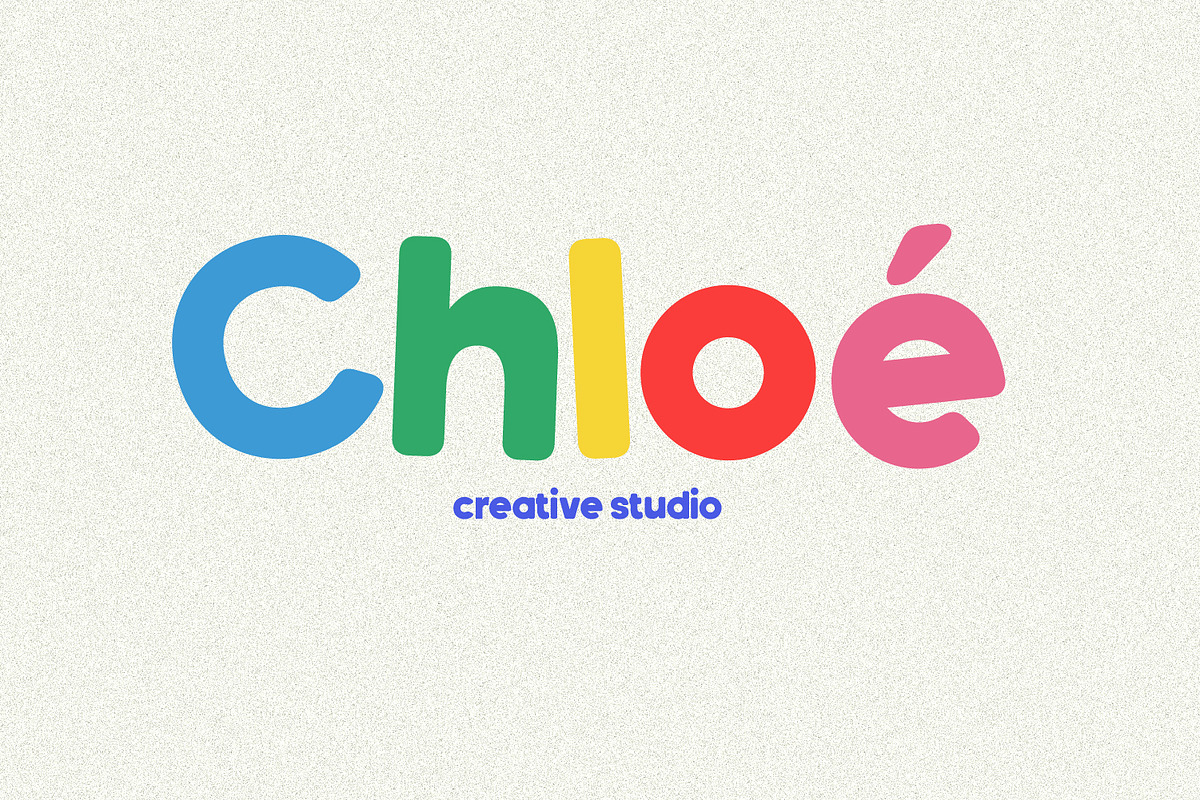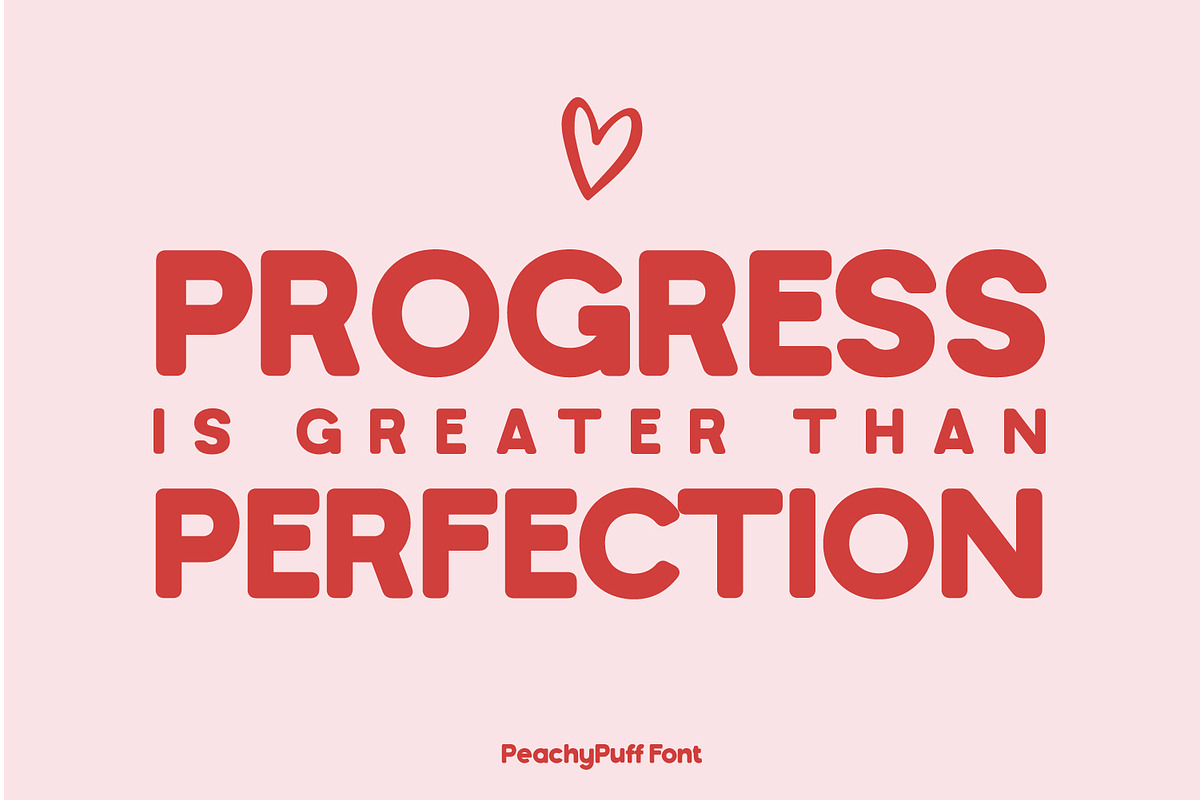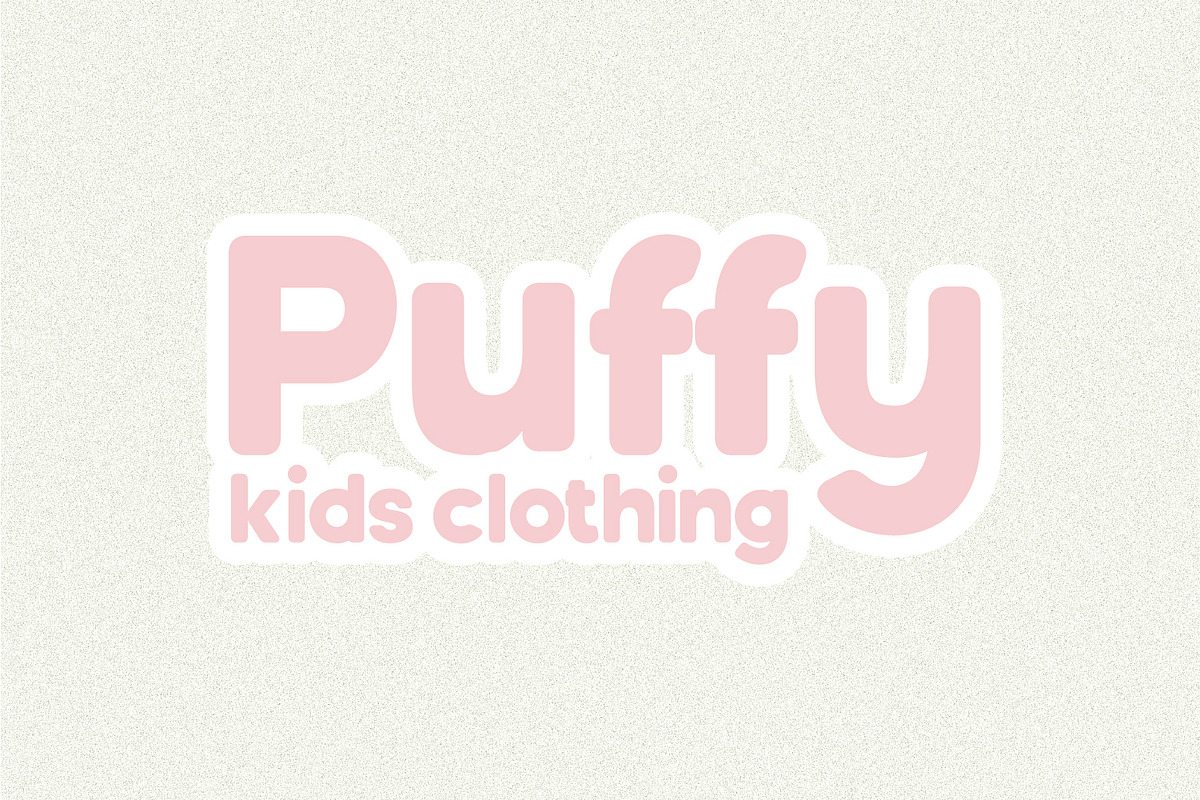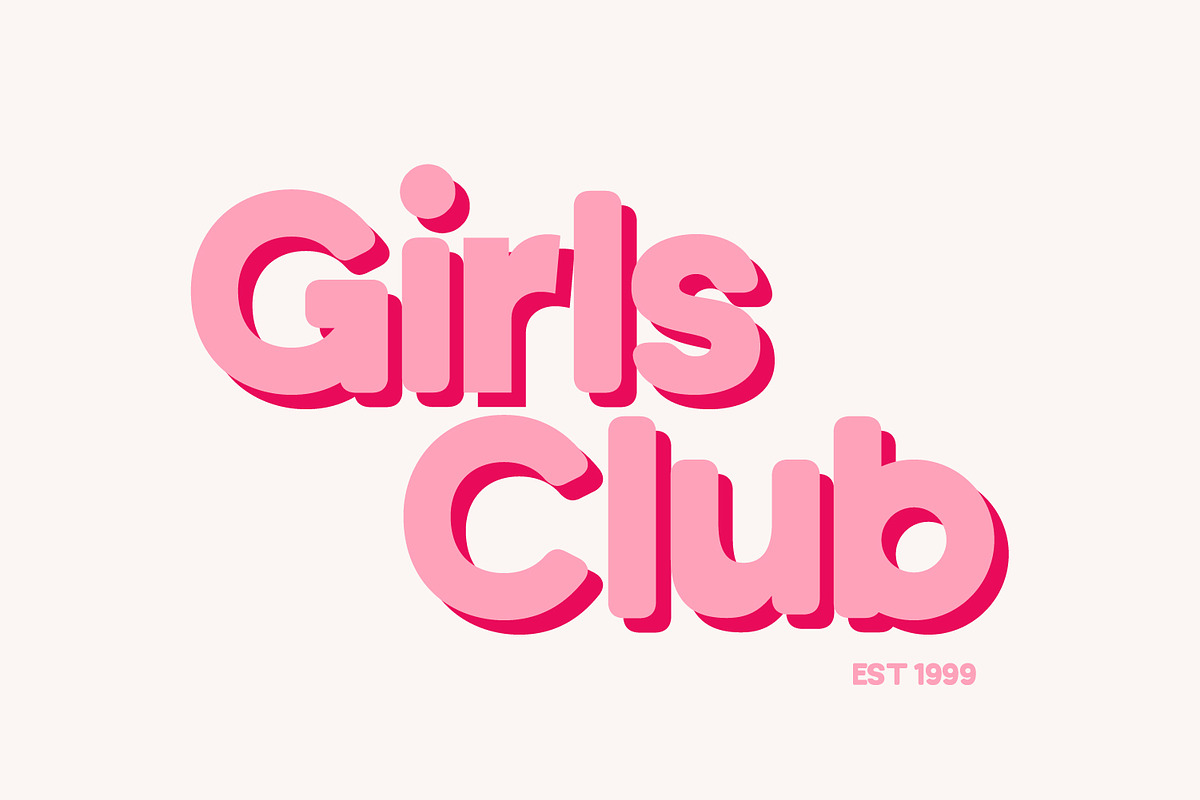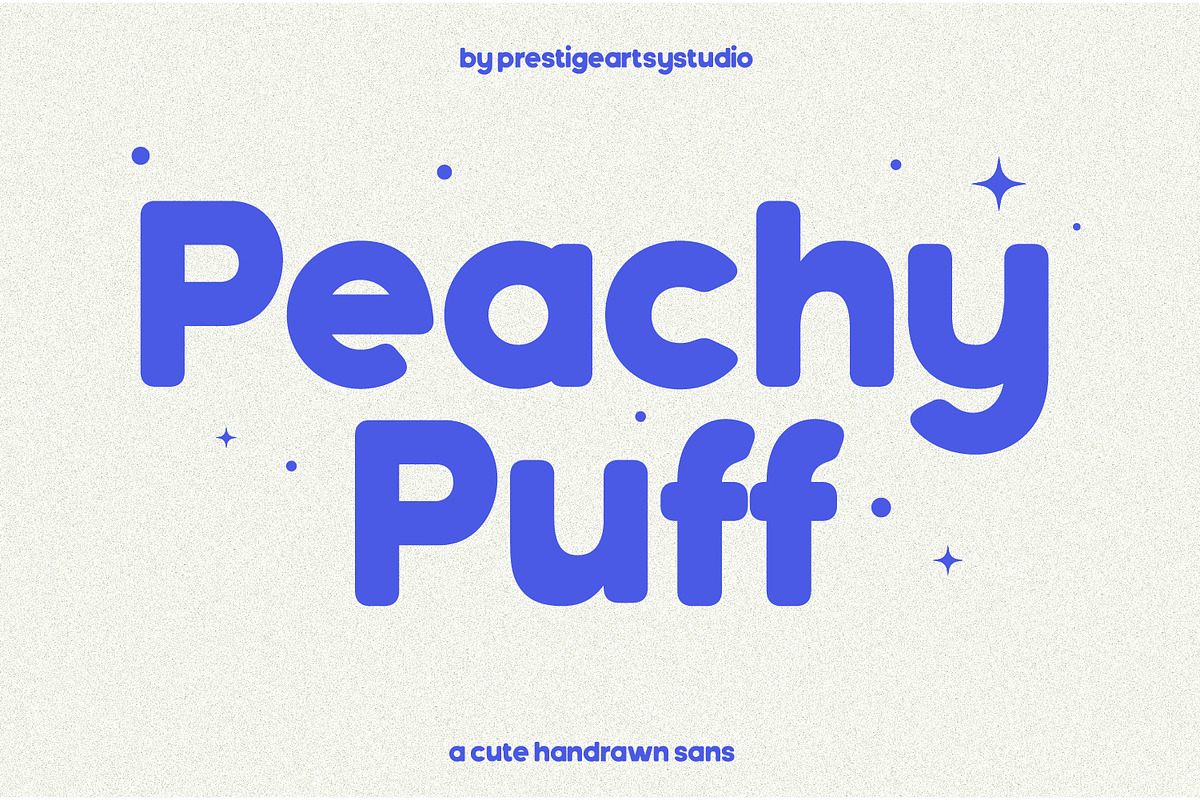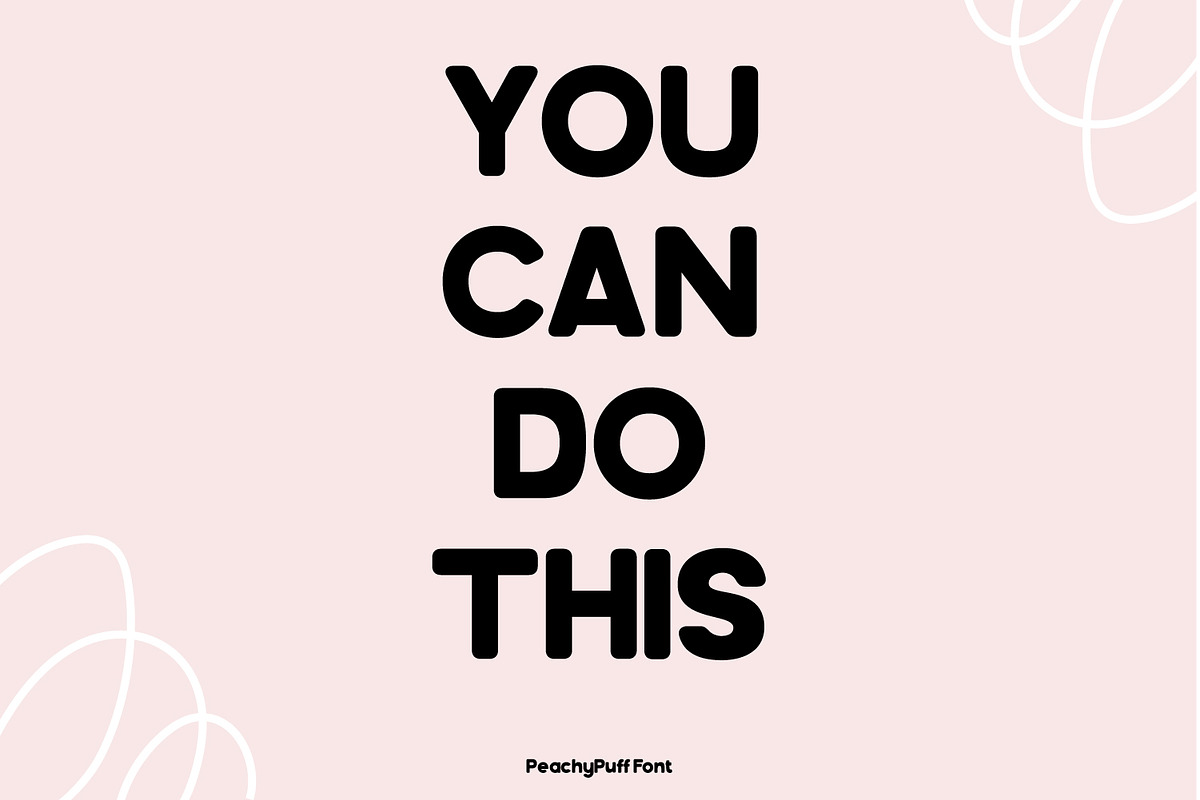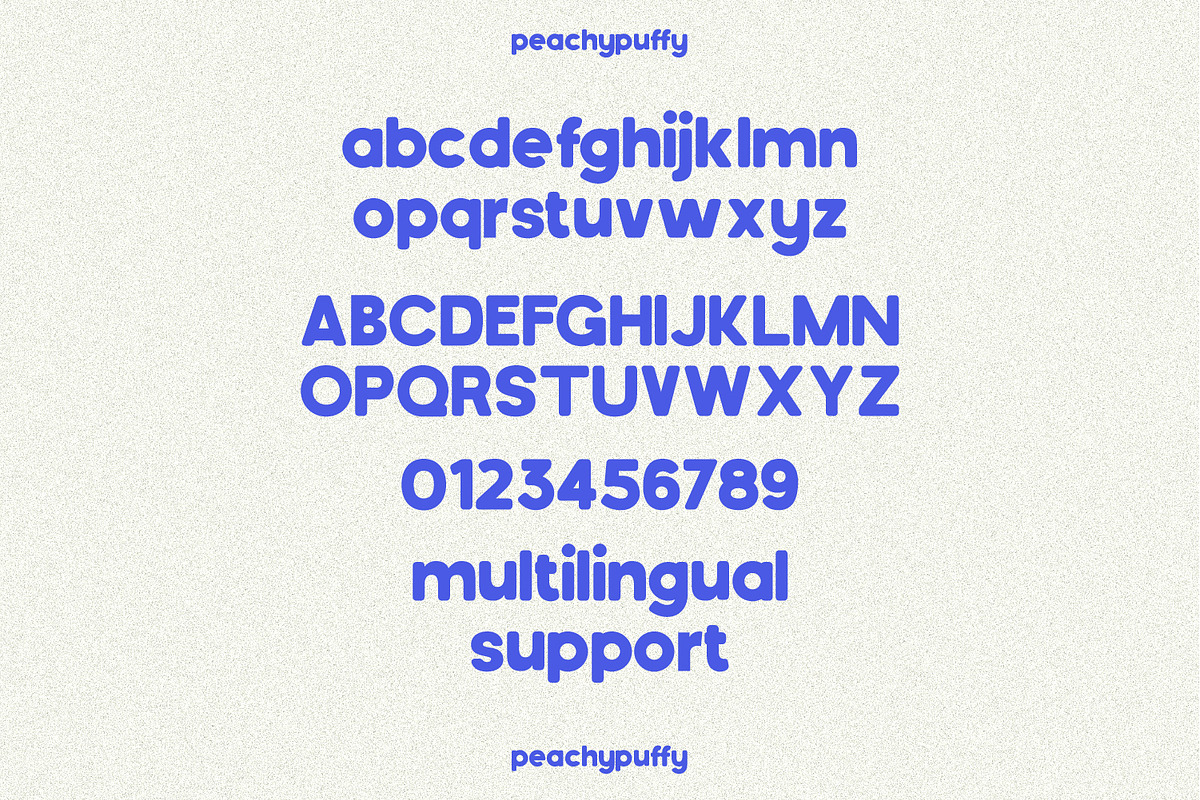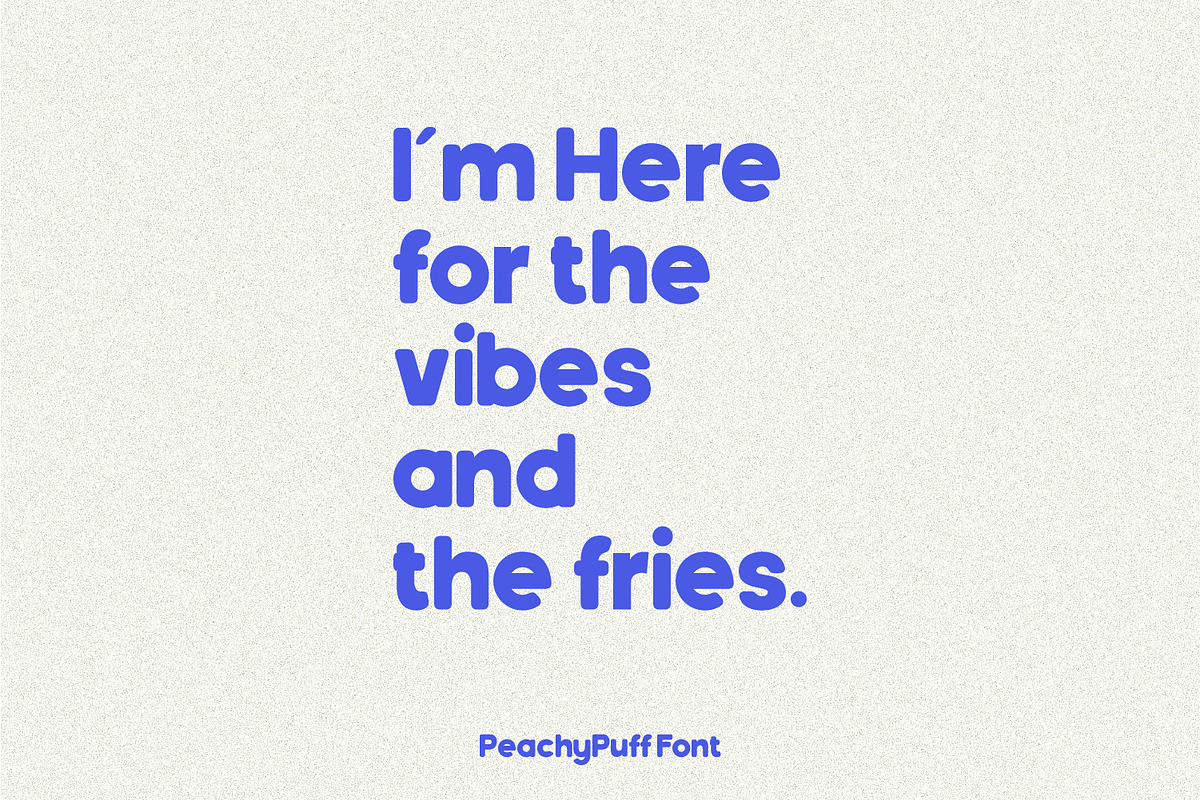
Peachy Puff A Handwritten Sans
🍑 Peachy Puff – A Cute Handdrawn Sans Font
Say hello to Peachy Puff, a chubby, hand-drawn sans font that’s full of soft charm and playful personality! Its rounded shapes and friendly style make it perfect for kids’ brands, social media posts, logos, packaging, quotes, and kawaii-inspired designs.
Whether you’re creating a pastel-themed logo, a sweet t-shirt print, or adorable Instagram graphics, Peachy Puff brings that warm, puffy, and irresistibly cute vibe your project deserves.
- Full uppercase & lowercase letters
- Numbers, punctuation & symbols
💡 Perfect For:
- Kids clothing brands 👶
- Creative studios 🎨
- Quote posts & wall art 🖼️
- Product packaging 🍬
- Cute stationery & greeting cards 💌
- Brand logos with personality 🌈